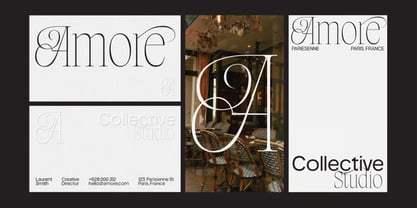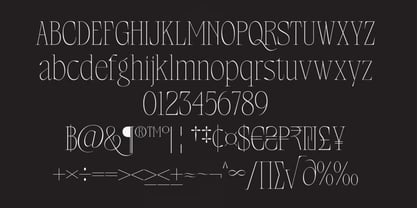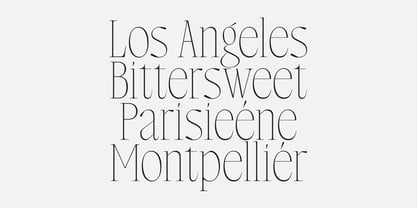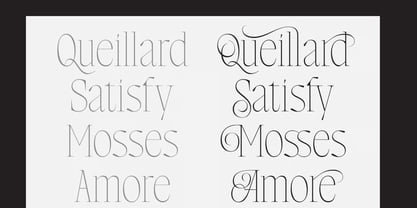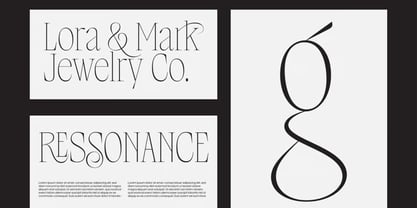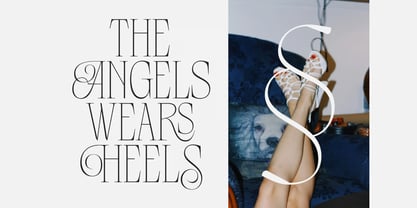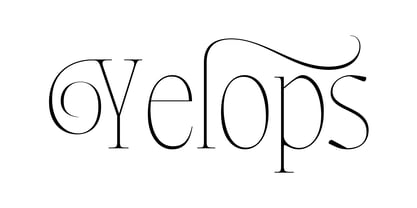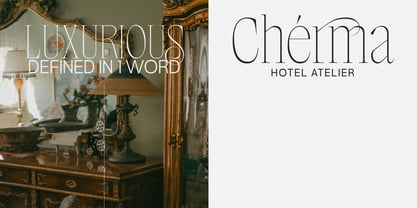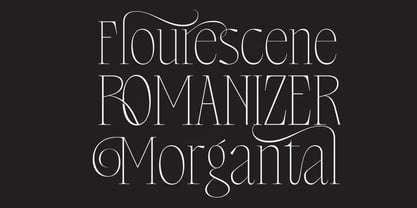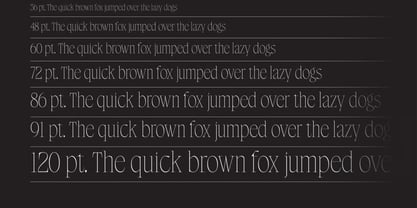
Yelops
The Yelops Font Family was designed by Hasnat Khan and published by Hasnat Studio. Yelops contains 1 styles. More about this family
Yelops is a luxury serif typeface masterfully crafted for premium branding, editorial design, creative agencies, and high-end visual identities. Inspired by the romantic elegance of classic European typography and the graceful flow of French italic lettering, Yelops blends delicate strokes, refined proportions, and sophisticated serif details into a timeless display font.
Designed for brands that demand exclusivity and elegance, Yelops features expressive letterforms and signature swash alternates that transform ordinary typography into luxurious visual statements. Every character is carefully balanced to create a harmonious combination of beauty, readability, and premium craftsmanship.
Whether you're designing a luxury logo, boutique brand identity, fashion editorial, cosmetic packaging, perfume labels, magazine covers, or an elegant website, Yelops delivers the sophistication and artistic flair needed to make your designs unforgettable.
Key Features:
• Luxury Serif Display Design: Elegant typography inspired by premium fashion and editorial aesthetics.
• Graceful European-Inspired Letterforms: Refined proportions with timeless sophistication.
• Signature Swash Alternates: Decorative characters for distinctive and memorable typography.
• Elegant High-Contrast Strokes: Creates a luxurious editorial appearance.
• Modern Yet Timeless Style: Perfect balance between contemporary design and classic beauty.
• Premium Display Typeface: Ideal for headlines, logos, and luxury branding.
• Clean & Readable Structure: Beautiful at both large display sizes and refined branding applications.
• Professional Typography: Crafted for premium print and digital design.
Perfect For:
• Luxury Branding & Logo Design: Build prestigious and memorable brand identities.
• Creative Agencies: Create sophisticated presentations and premium client branding.
• Editorial & Magazine Layouts: Stunning for covers, headlines, and fashion publications.
• Fashion Campaigns: Perfect for luxury apparel, accessories, and lifestyle brands.
• Boutique Packaging: Enhance cosmetics, perfumes, skincare, wine labels, and premium products.
• Creative Studio Websites: Design elegant digital experiences with refined typography.
• Wedding Invitations & Stationery: Add timeless romance and sophistication to special occasions.
• Social Media & Advertising: Produce stylish, high-end promotional content.
Transform your creative vision with Yelops—a luxury serif typeface featuring elegant swash alternates, refined letterforms, and timeless editorial styling. Perfect for luxury branding, fashion campaigns, creative agencies, magazine layouts, boutique logos, premium packaging, and sophisticated visual identities that leave a lasting impression.